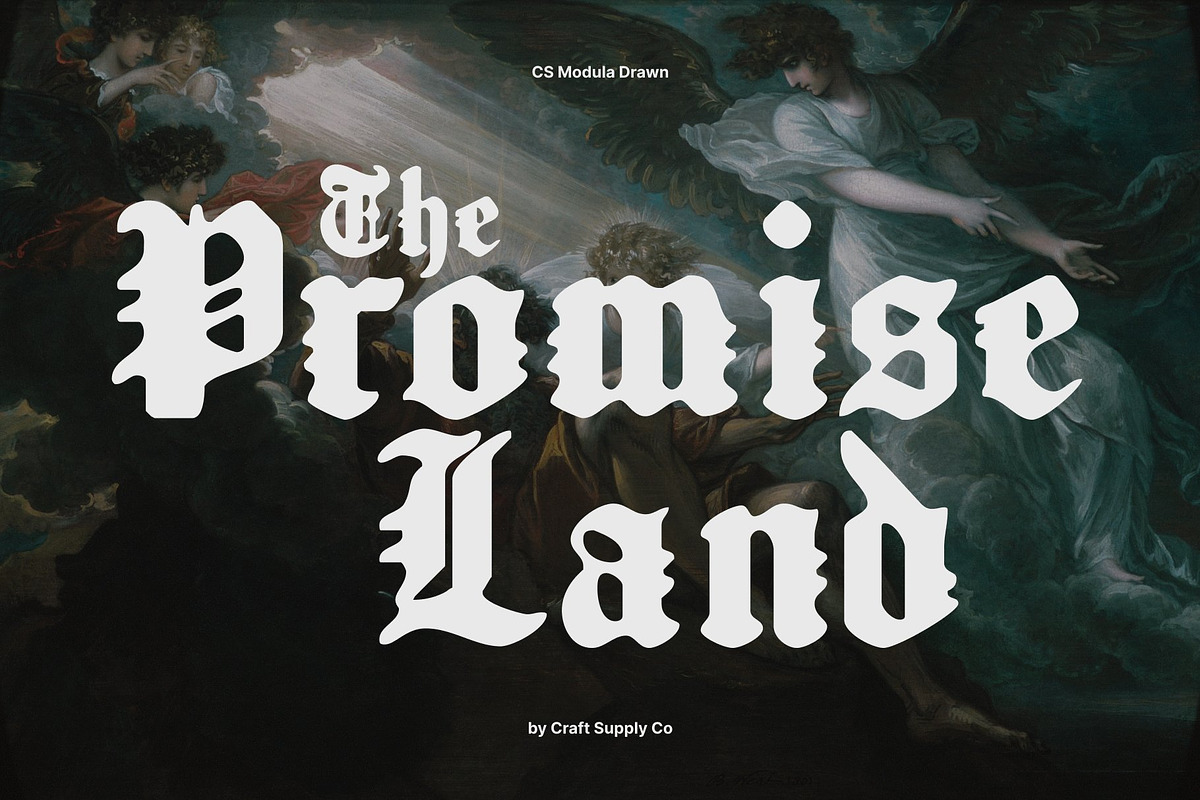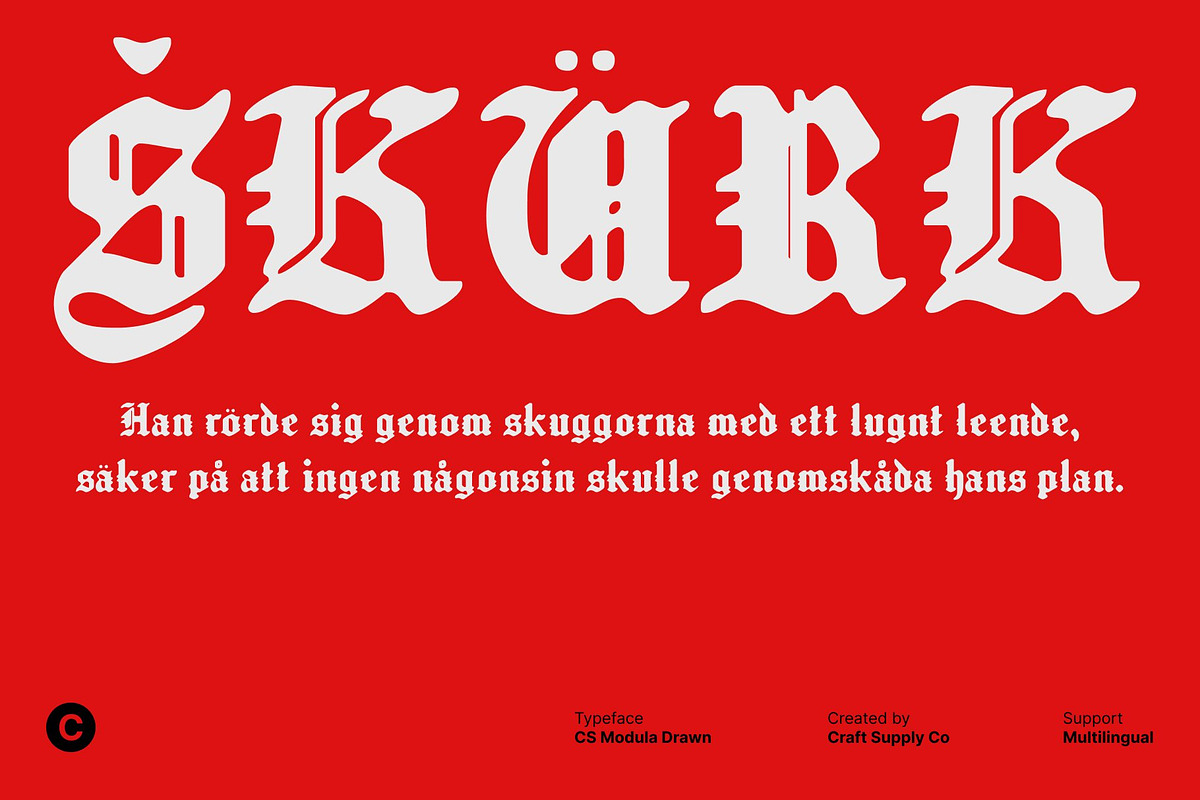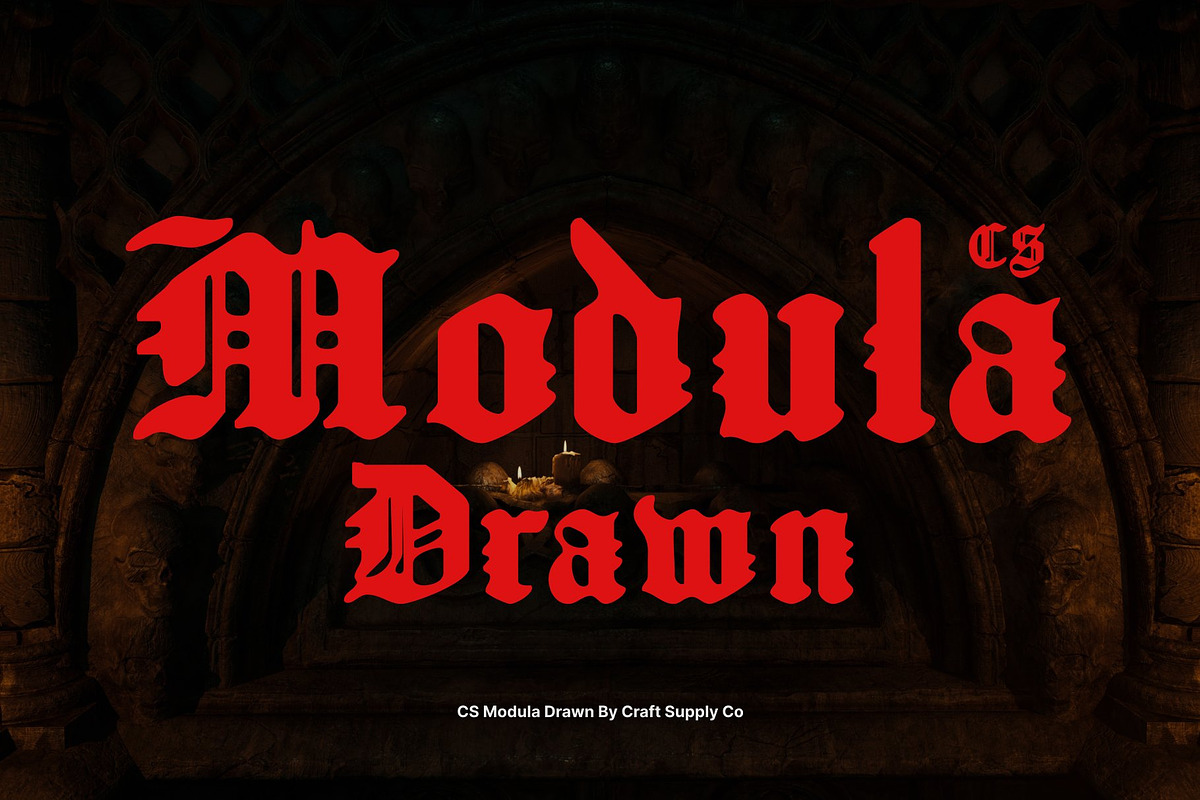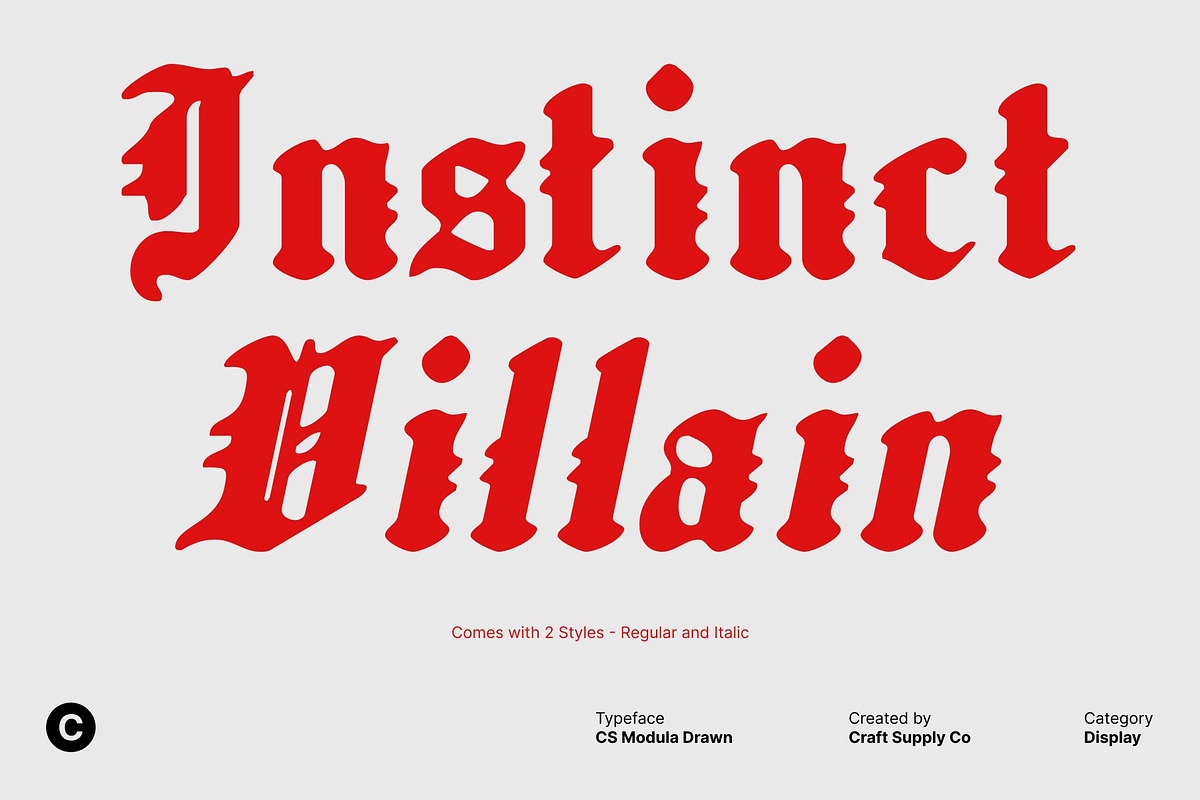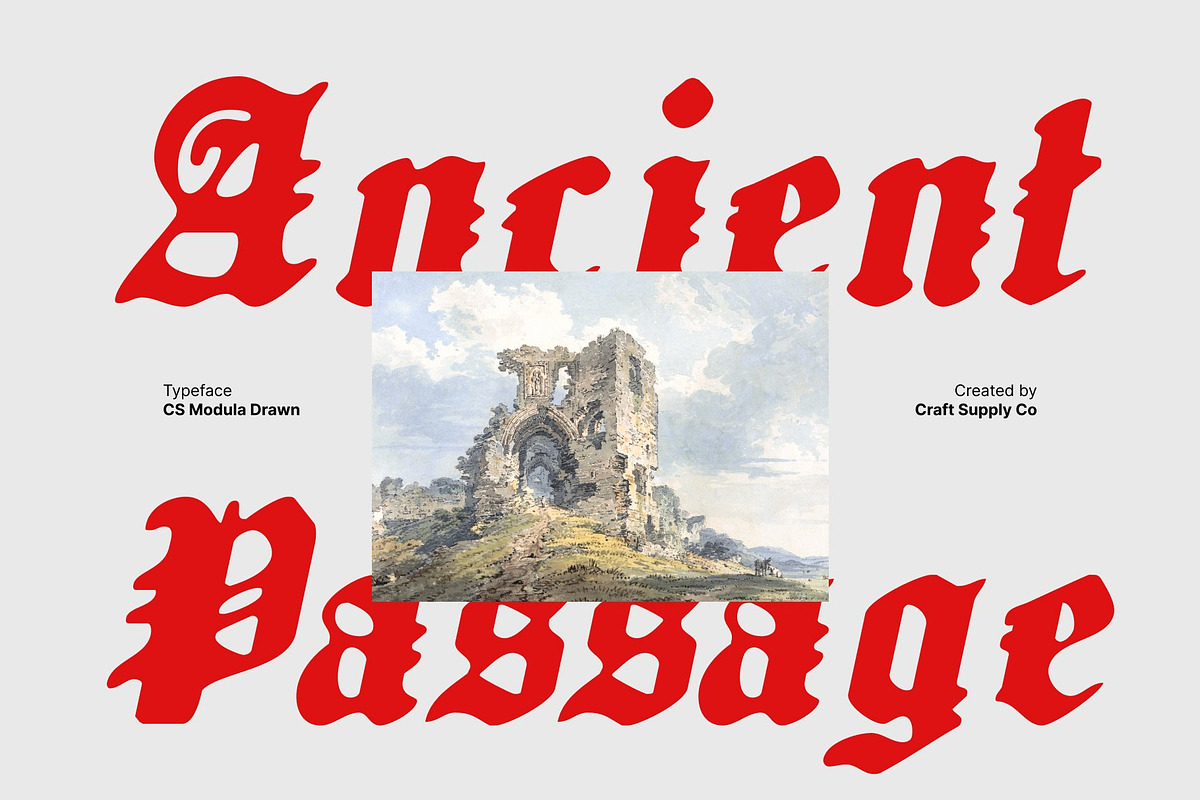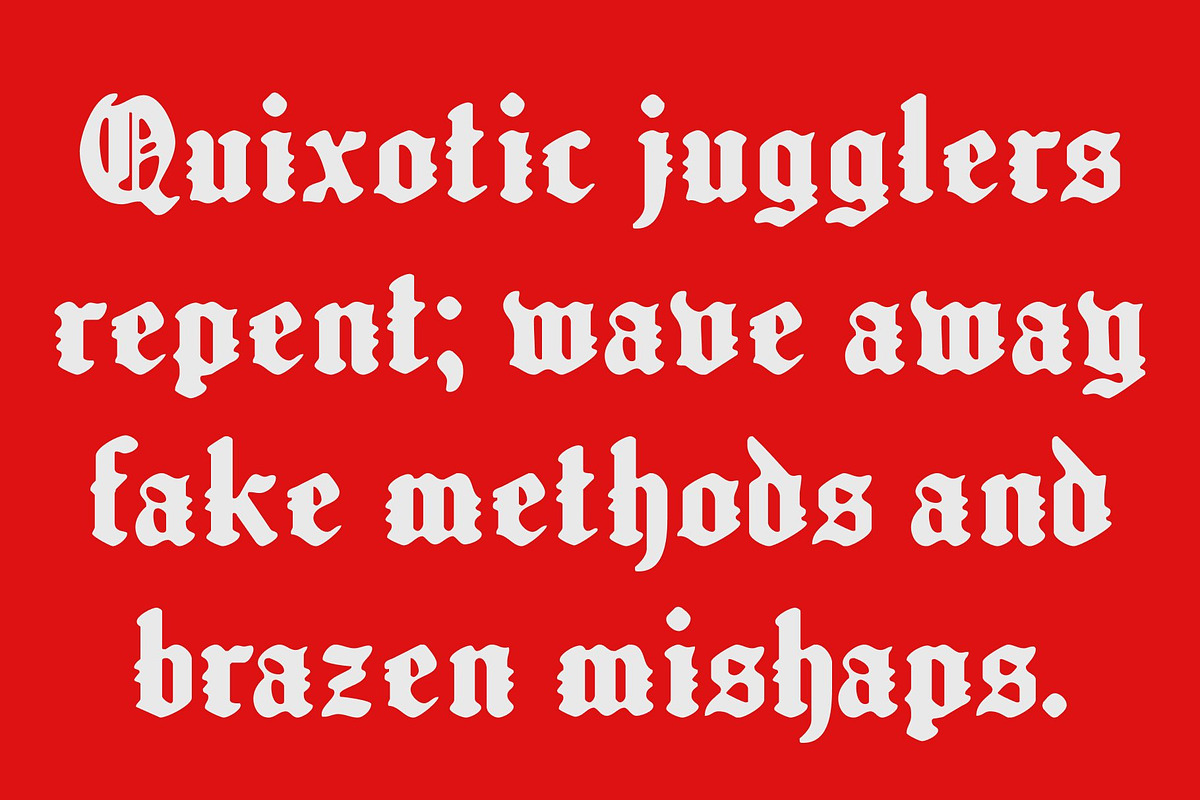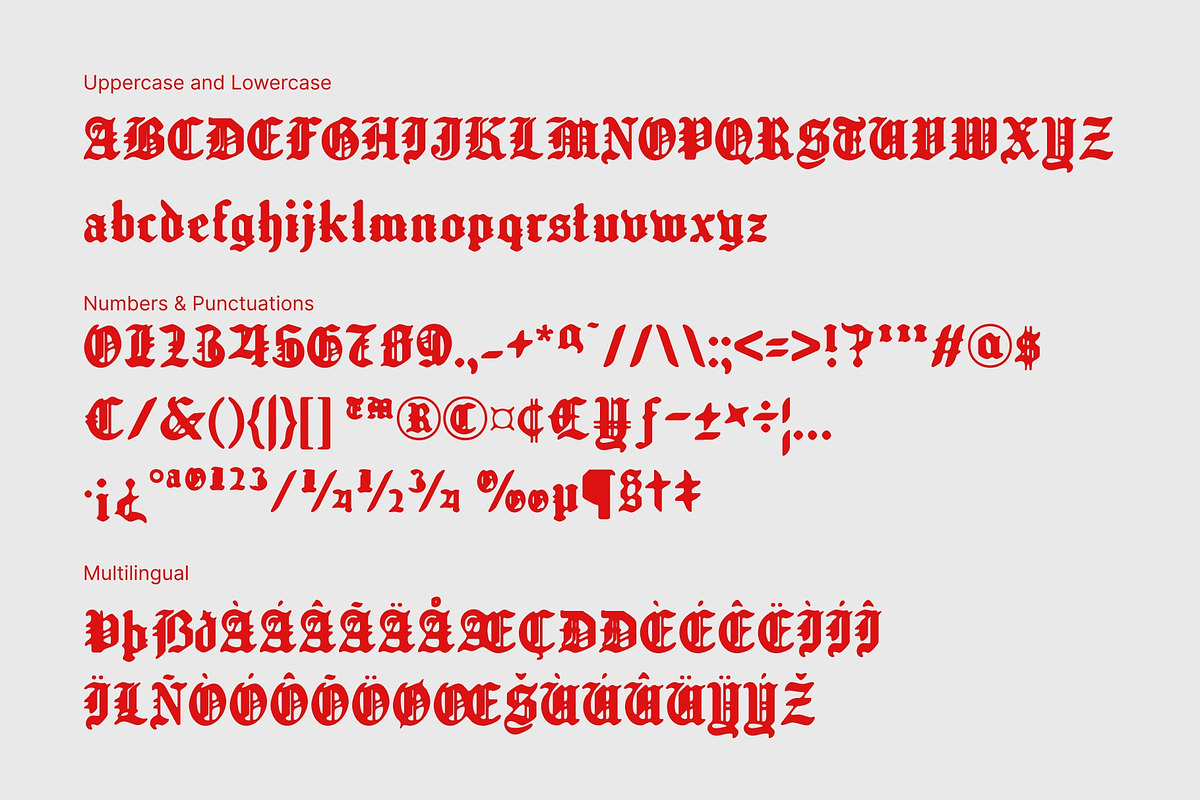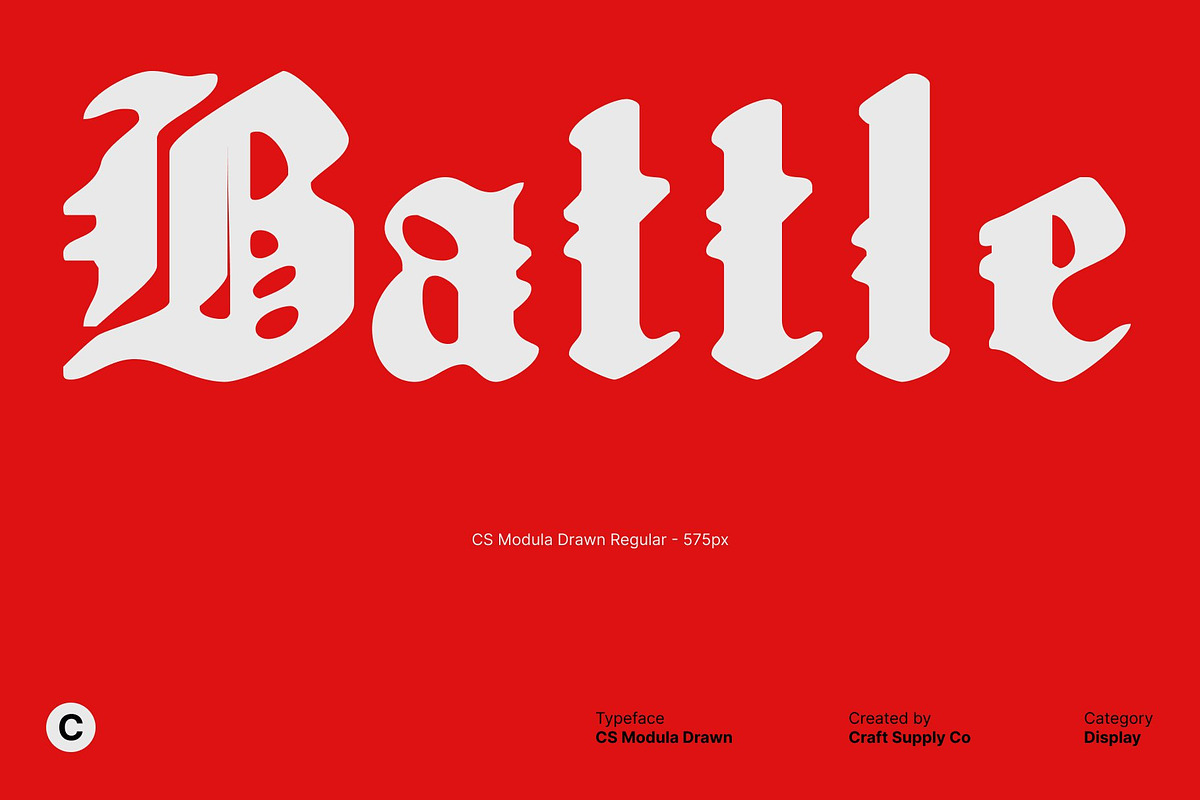
CS Modula Drawn
CS Modula Drawn – Old English Display Font with Artistic Hand-Drawn Texture
Classic Old English Style with Bold Ornamentation This is a striking display font rooted in the grandeur of traditional Old English typography. Its bold, decorative letters are crafted with rich ornamentation, capturing the timeless beauty and historical elegance of medieval script. Each character carries a sense of tradition, authority, and mystique, making the font instantly impactful in any design.
Hand-Drawn Texture for Authentic Artistic Character Enhanced with a unique drawn effect, this font introduces a handmade texture that brings warmth and personality to its traditionally rigid forms. This hand-rendered look softens the sharp, ornamental details while adding expressive irregularities that make the font feel alive. As a result, your typography gains depth, authenticity, and a distinctive artistic presence.
Mysterious and Dramatic Visual Atmosphere The interplay between Old English structure and organic drawn texture creates a dramatic, mysterious mood. Each glyph feels both historical and handcrafted, merging the grandeur of the past with the creativity of modern artistry. This lively contrast gives your design a powerful visual voice that stands out in contemporary settings.
Perfect for Titles, Posters, Branding, and Creative Projects This font is ideal for designers seeking a blend of tradition and artistic flair. Use it for book titles, movie posters, branding concepts, album covers, or any creative project that requires a mysterious and richly decorated aesthetic.